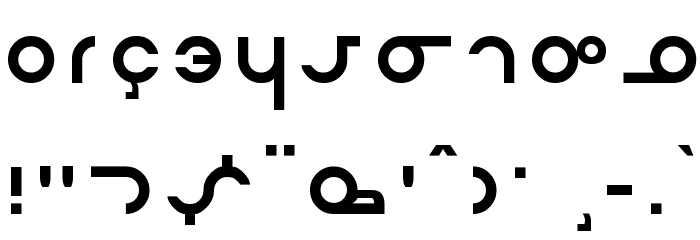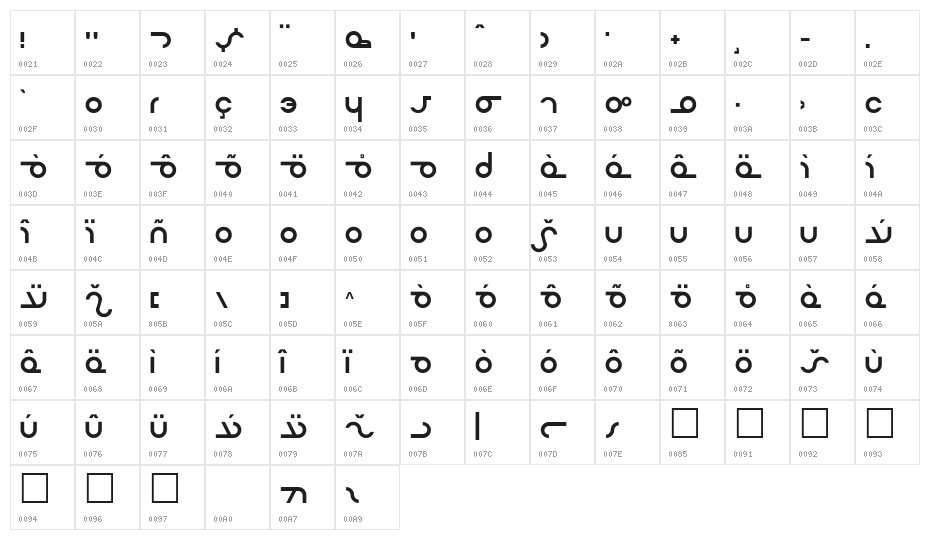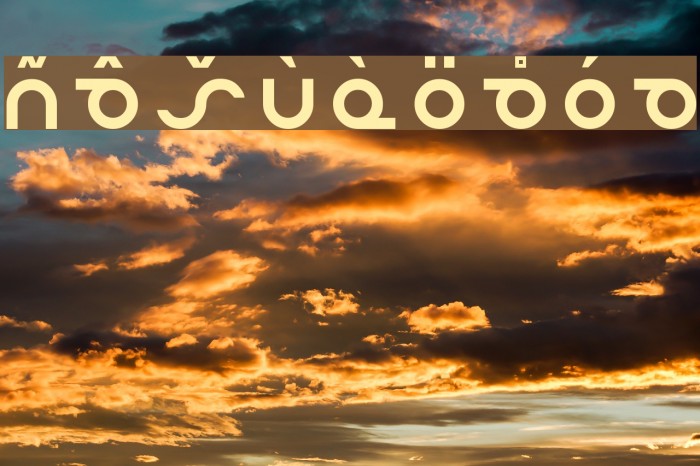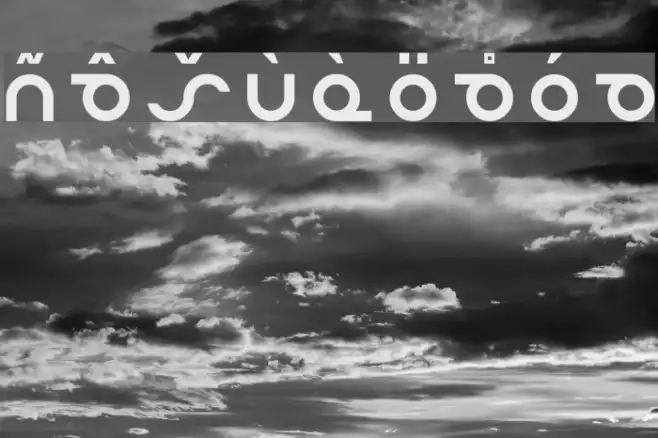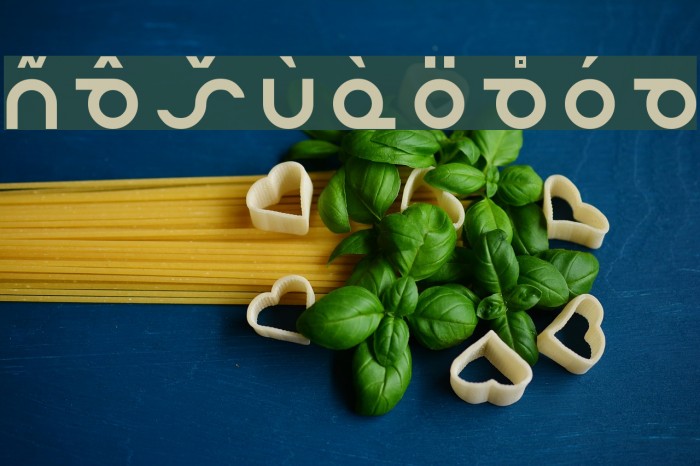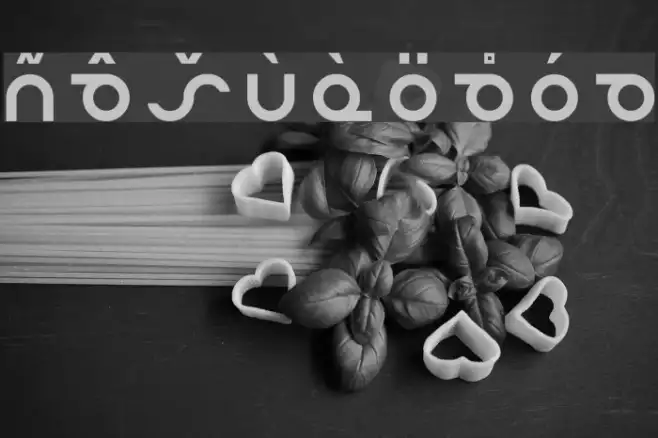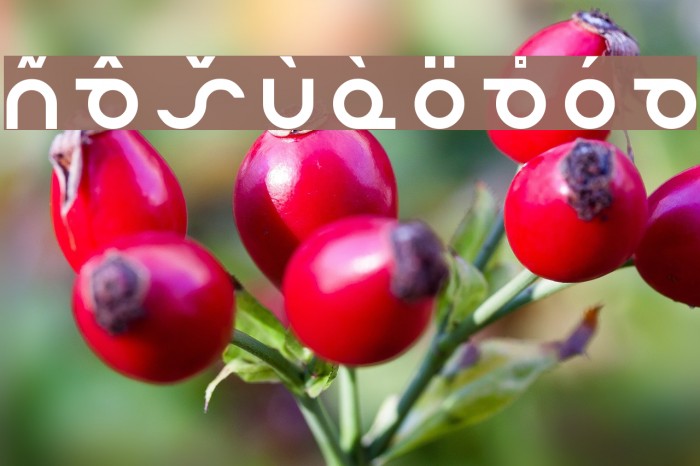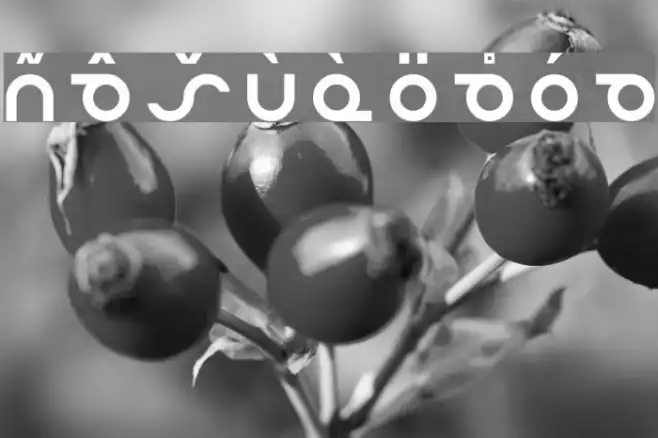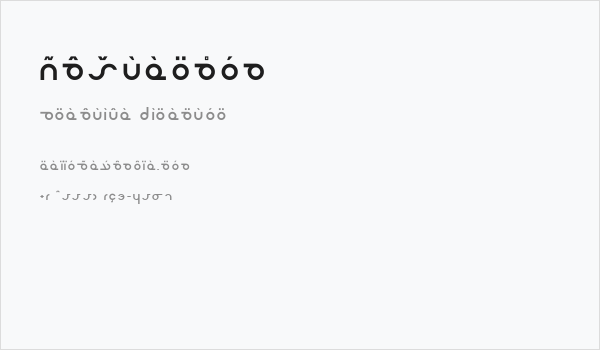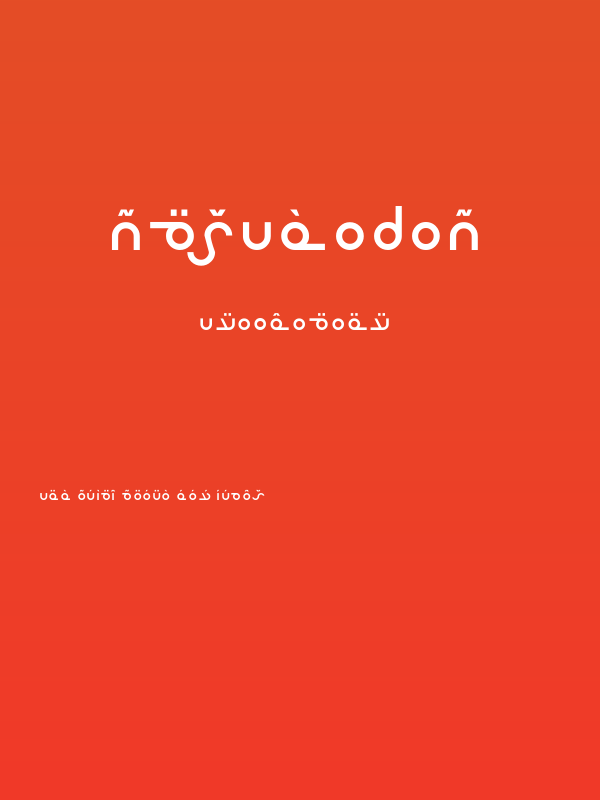
Masterdom Font
Masterdom Description
This font features a modern and geometric design, characterized by its clean lines and uniform stroke weight. The characters are rounded with a consistent thickness, giving it a sleek and contemporary appearance. The font includes a variety of accented characters, making it versatile for multiple languages. Its simplicity and clarity make it highly legible, even at smaller sizes. The overall style is minimalistic, with a focus on functionality and readability. The special characters are designed to match the overall aesthetic, maintaining the same geometric and modern feel.
| Proposed Projects | Ideal for tech branding, modern web design, minimalist posters, and digital interfaces. |